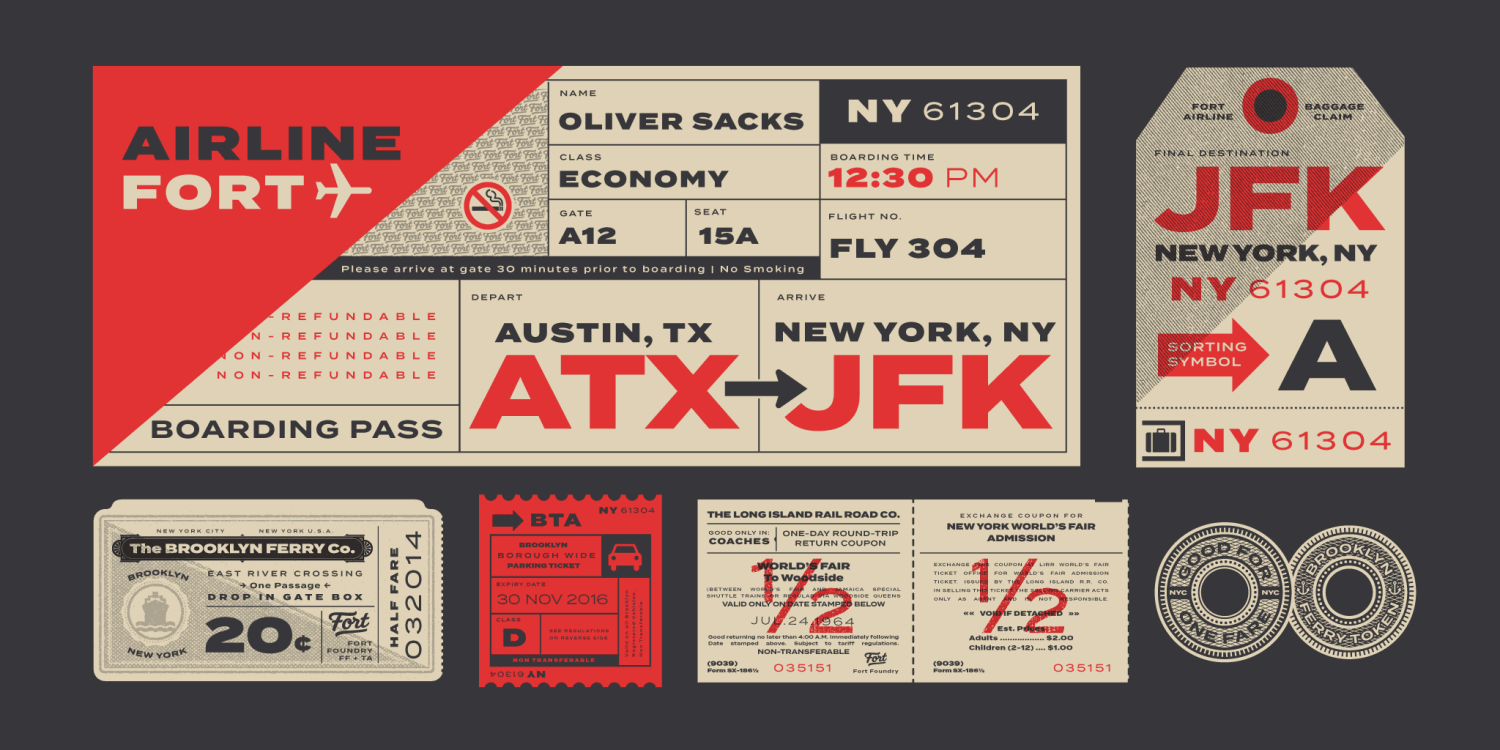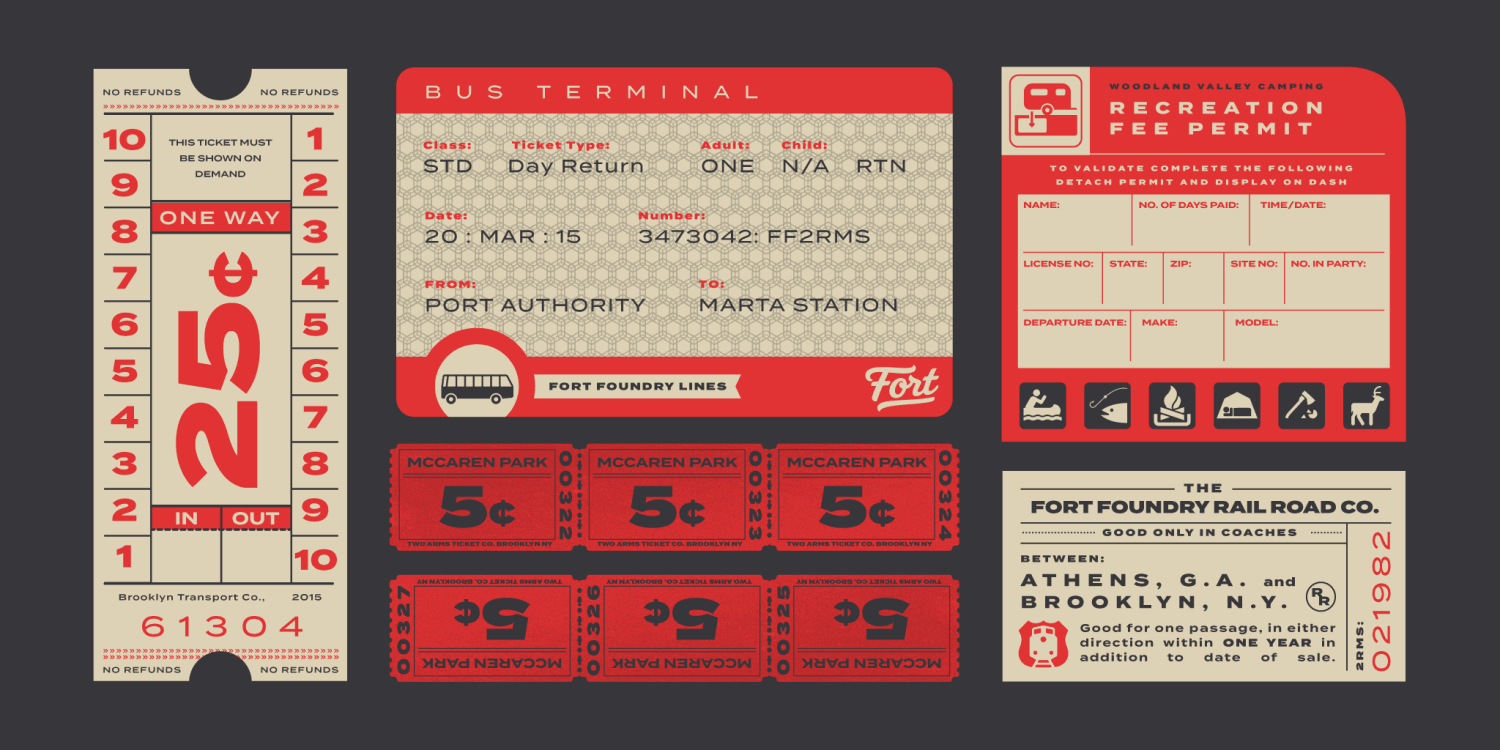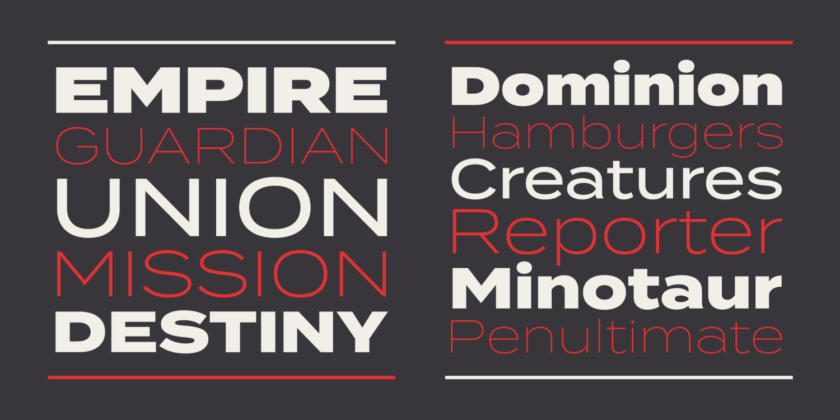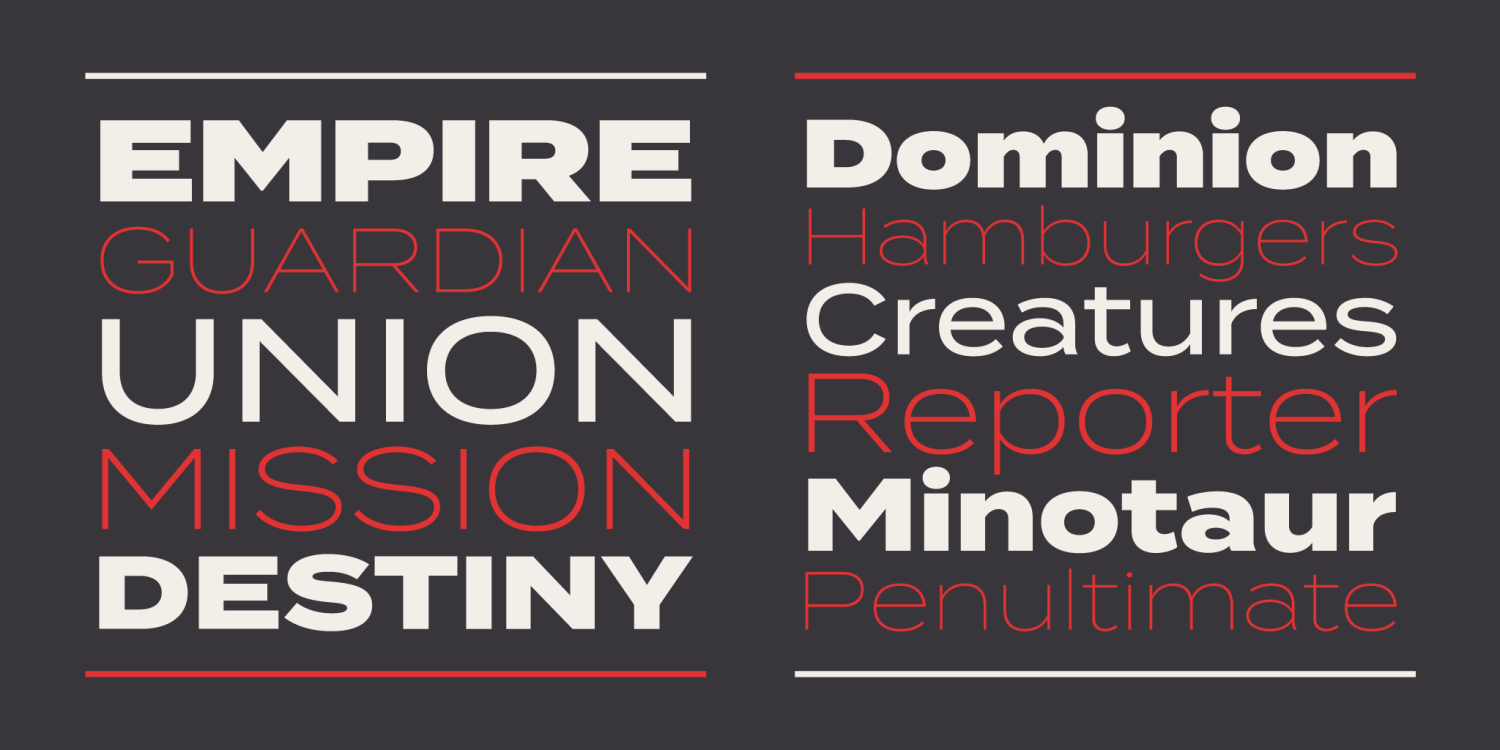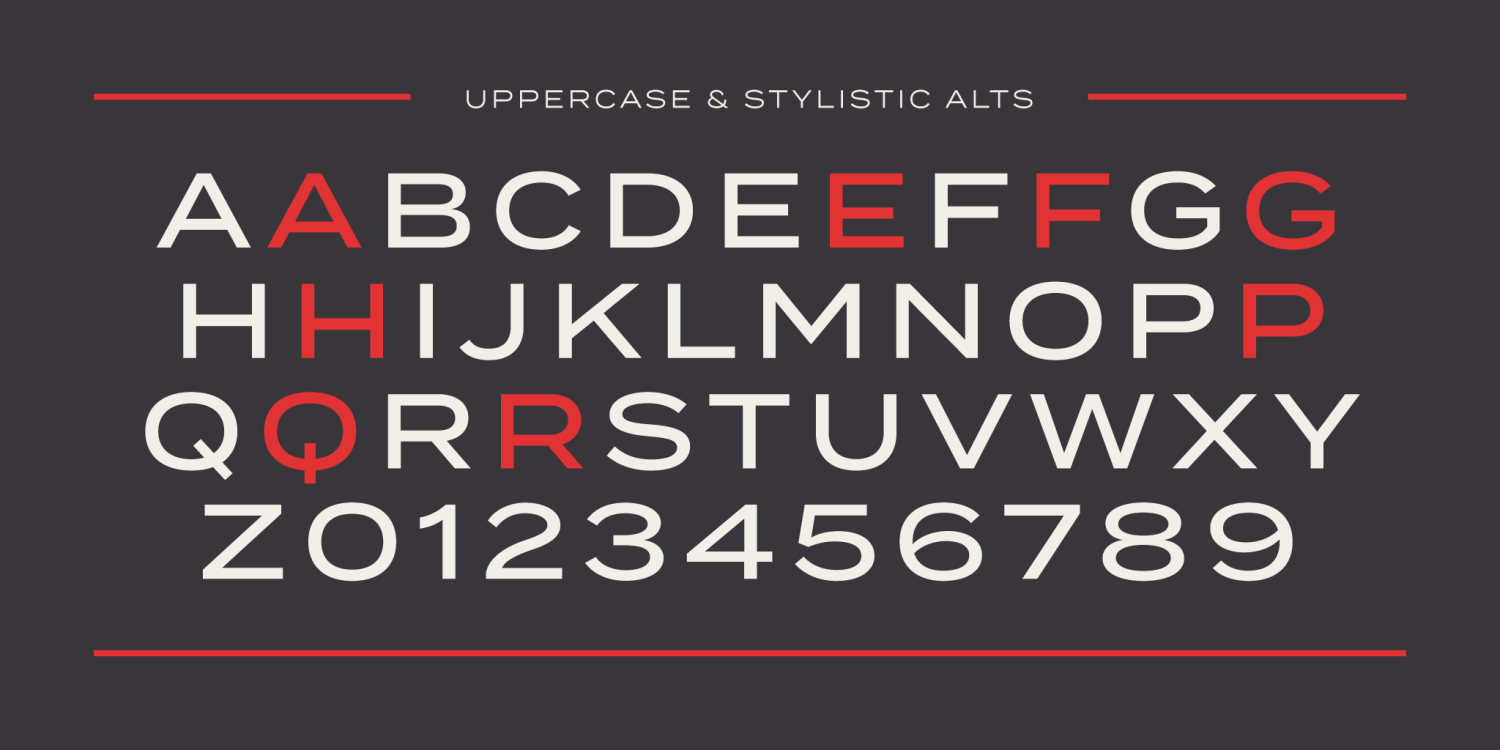
About Termina
Amongst the landscape of geometrics, Termina breaks the norm with its generously wide letterforms. The typeface was conceived after finding and examining specimens for Industria, a family designed by Hermann Zehnpfundt in the early nineteen-hundreds for…